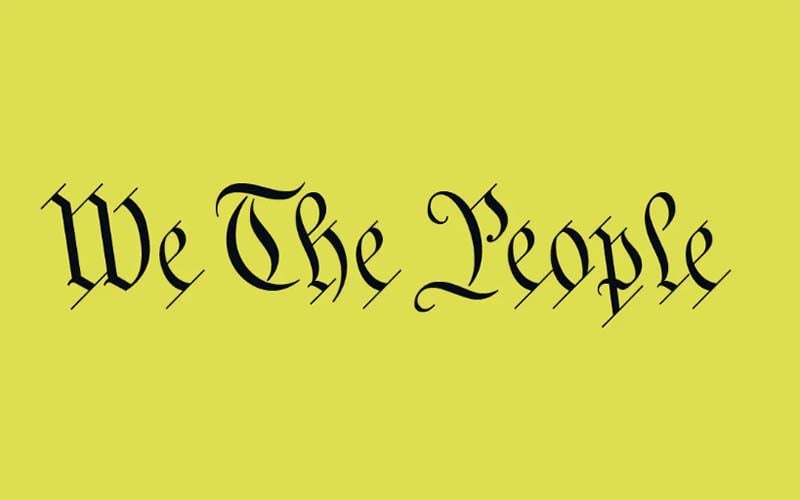
We the People Font is a Gothic, Various typeface. This typeface is extrapolated from the handwritten ‘We the People’ calligraphy in the Preamble to the US Constitution.
This is a very personal font and is used in a lot of royal designs and was designed and launched for the first time by David Quay in the early 80s of the 20th century.
An amazing “We the People” is a Hip-hop-style music album font that becomes famous in the professional design world. This is the debut studio album from Flipside.
This album got a huge success within a short time after its release to the public. It has been announced in many countries around the world and many professional designers, and amateurs, want to own and explore this amazing font.
We The People Font
| Style: | Gothic, Various, Typefaces |
| Font Designer: | K-Type |
This unique and famous Gothic font is very popular because of its classic and very vintage designs. We the people font packed with a total of 200 unique glyphs of the number along with 1000 units of each EM.